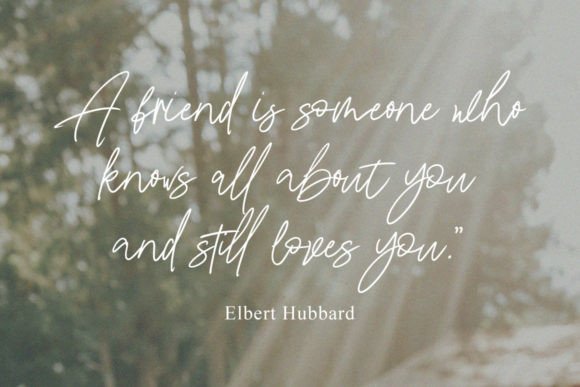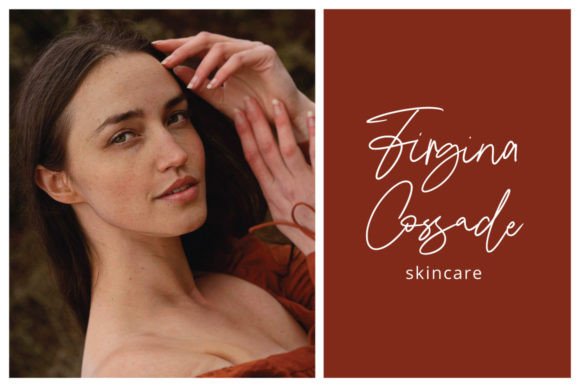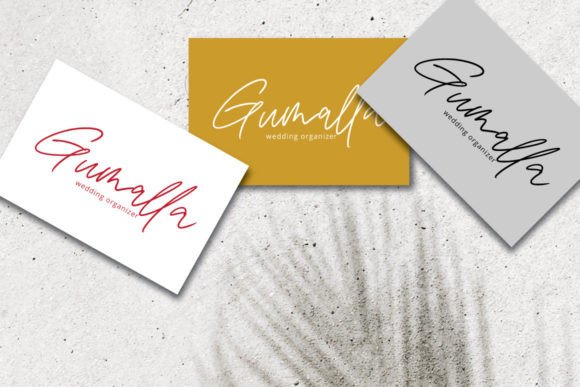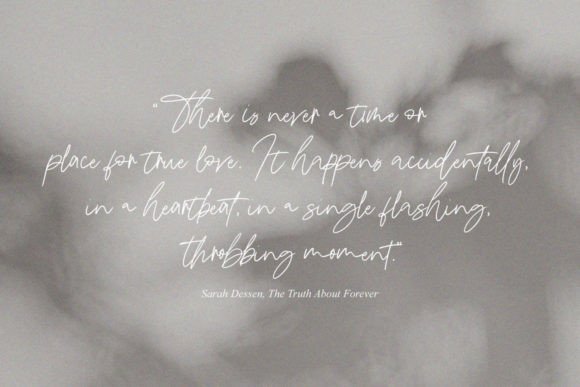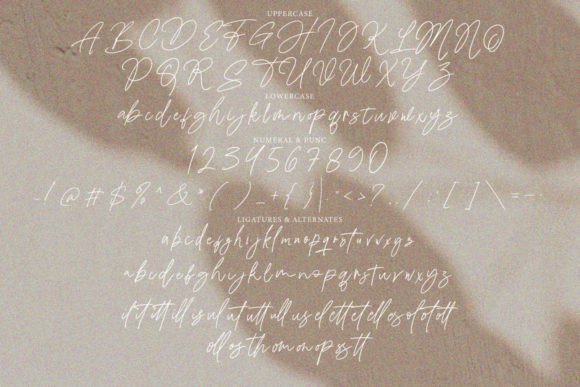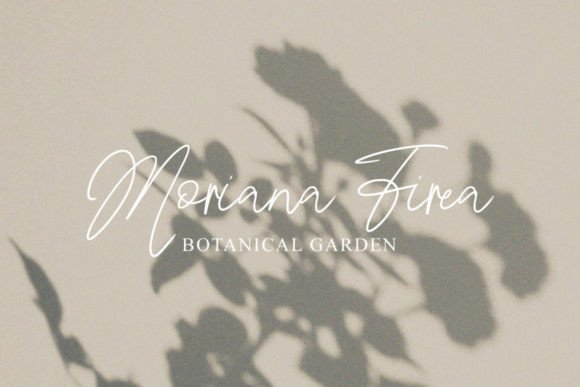
Bathire Font: Elevate Your Designs with Elegance and Romance
In the world of typography, fonts play a crucial role in conveying the tone and aesthetic of a design. For those seeking to infuse their projects with a touch of romance and sophistication, the Bathire Font is an exceptional choice. This beautiful signature script font is designed to bring a sense of elegance and charm to various design applications, making it particularly suited for wedding invitations, love letters, and other romantic endeavors.
The Essence of Bathire Font
Bathire is a gracefully crafted signature script font that embodies the essence of romance and luxury. Its design is characterized by flowing letterforms and delicate flourishes, which collectively contribute to a timeless look. The font’s elegance is not just in its appearance but also in its versatility, allowing it to be used across a range of design projects that require a personal and sophisticated touch.
Key Features of Bathire Font
- Flowing Letterforms: The Bathire Font boasts smooth and connected letters that create a fluid, harmonious look. This feature is particularly beneficial for creating a natural flow in text, making it ideal for longer pieces of writing.
- Delicate Flourishes: What sets Bathire apart are its intricate flourishes. These decorative elements add a level of sophistication and elegance to the text, making it stand out in any design.
- Elegant and Readable: Despite its ornate nature, the Bathire Font maintains a high level of readability. This balance between style and functionality makes it a practical choice for designers who want to impress without compromising on clarity.
- Versatile: From wedding invitations and love letters to branding and packaging, Bathire’s versatility ensures it can elevate a wide array of design projects.
Applications of Bathire Font
The romantic and elegant nature of the Bathire Font makes it particularly well-suited for:
- Wedding Invitations: Add a touch of luxury and romance to your wedding invitations, setting the tone for a memorable event.
- Love Letters: Whether you’re writing a heartfelt letter to a loved one or creating a professional design, Bathire brings emotion and elegance to your words.
- Branding and Packaging: For brands aiming to convey a sense of luxury, romance, or sophistication, Bathire can be a valuable asset in creating a distinctive visual identity.
- Stationery and Greeting Cards: Elevate your stationery and greeting cards with a font that exudes warmth, elegance, and personal touch.
Tips for Using Bathire Font Effectively
To maximize the impact of the Bathire Font in your designs, consider the following tips:
- Pair with Simplicity: Bathire’s elaborate nature makes it a focal point in any design. Pair it with simpler fonts or clean backgrounds to ensure it stands out.
- Adjust Size and Color: Experiment with different sizes and colors to find the perfect balance that suits your design’s tone and theme.
- Consider the Context: While Bathire is versatile, it’s essential to consider the context in which it’s used. Ensure the font aligns with the project’s overall aesthetic and message.
The Bathire Font is a beautiful addition to any designer’s toolkit, offering a unique blend of elegance, romance, and versatility. Its flowing letterforms and delicate flourishes make it an ideal choice for projects that require a touch of sophistication and charm. Whether you’re designing wedding invitations, crafting love letters, or developing a brand’s visual identity, Bathire is sure to elevate your designs to new heights of elegance and romance.